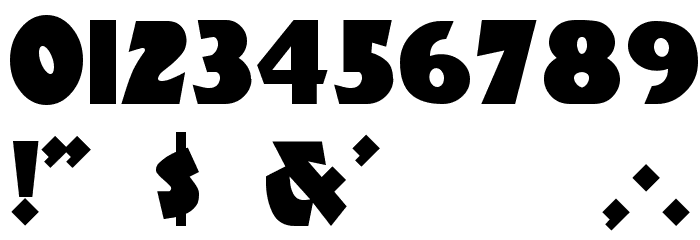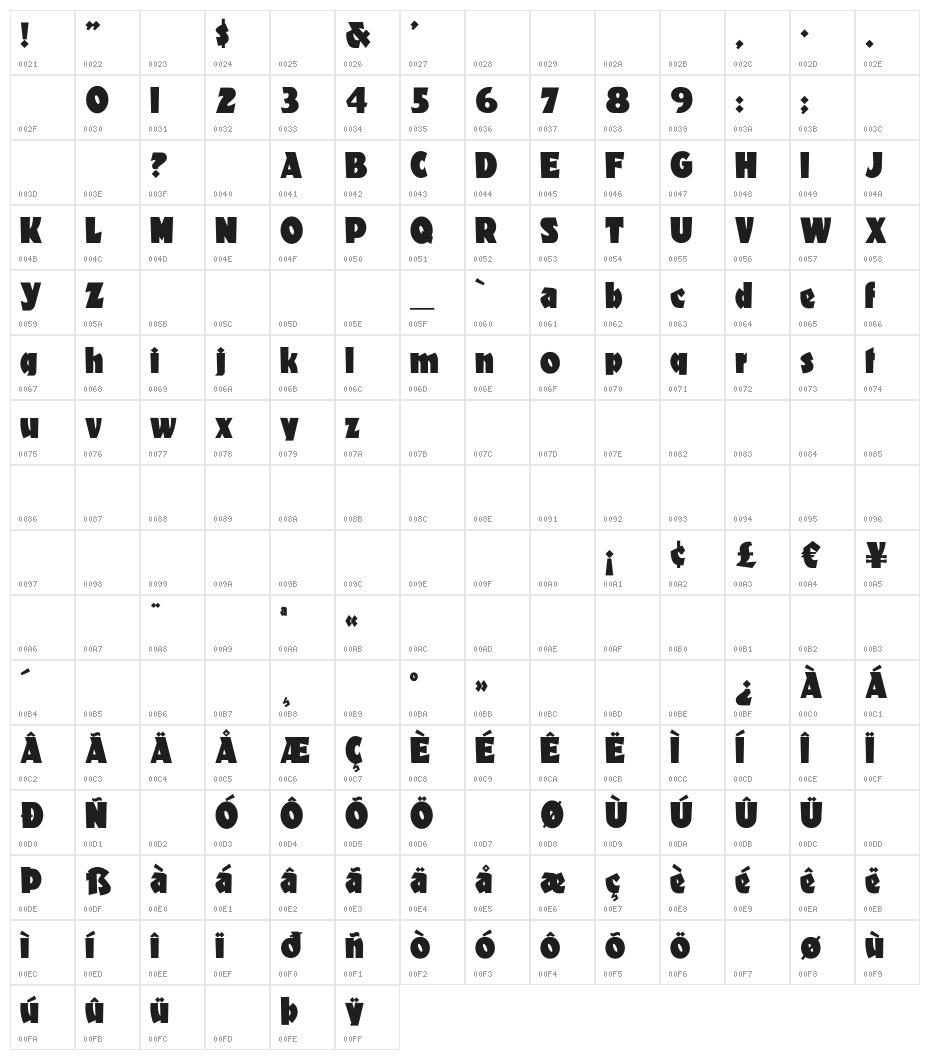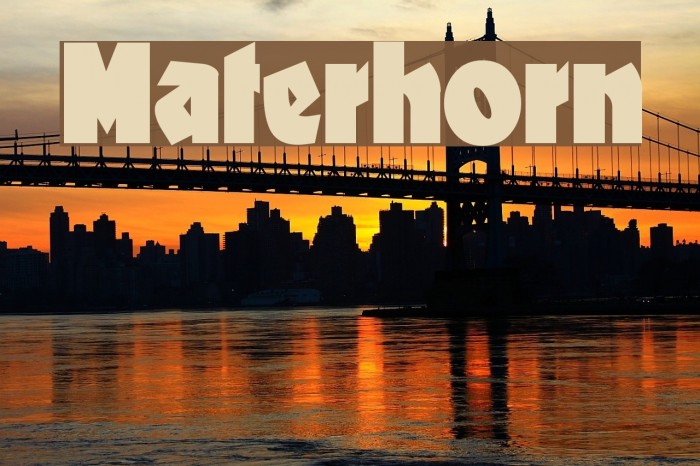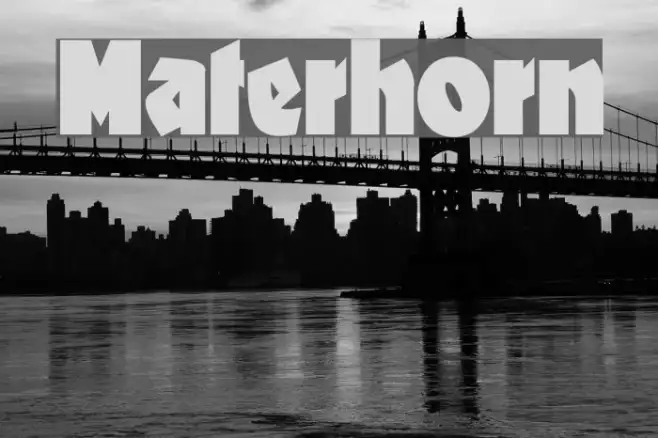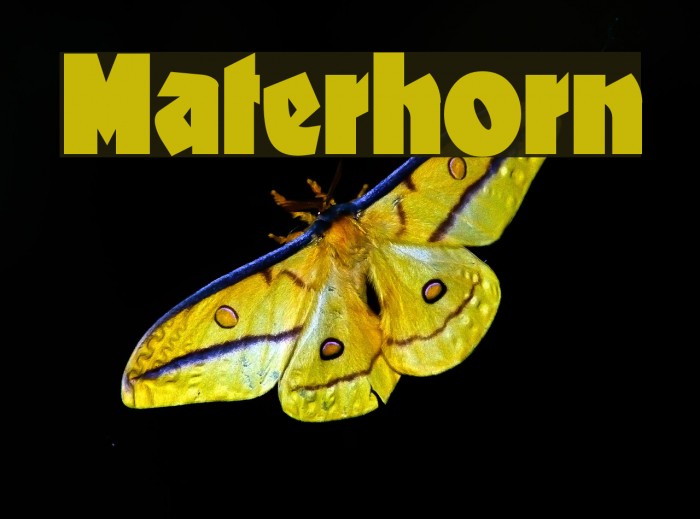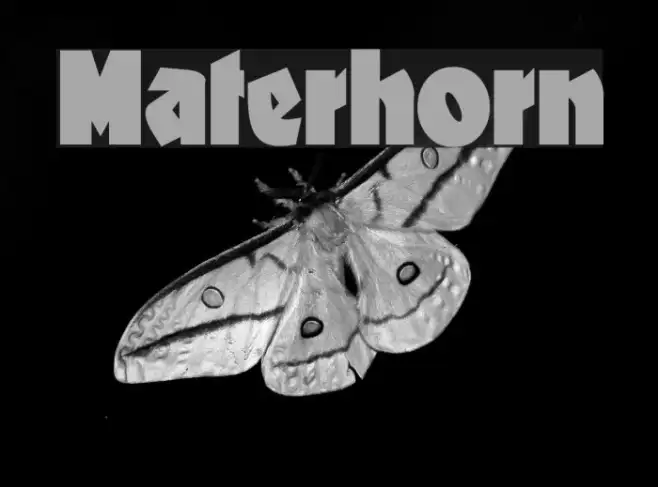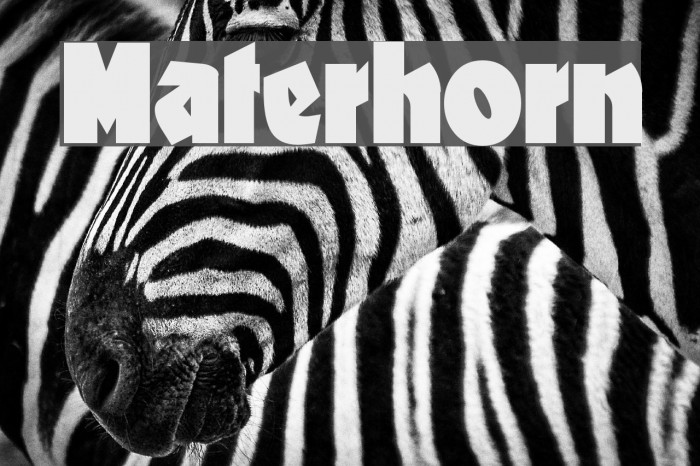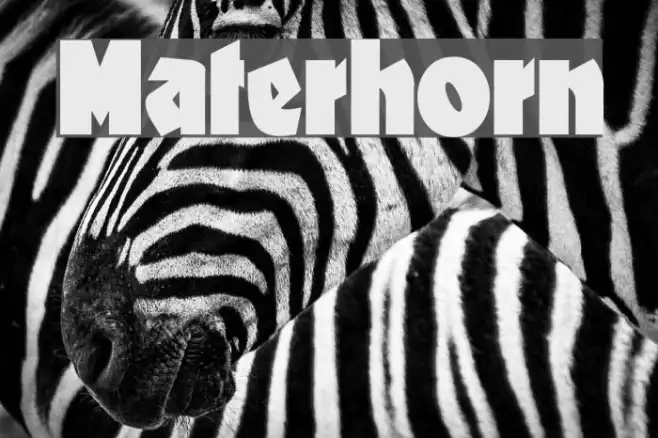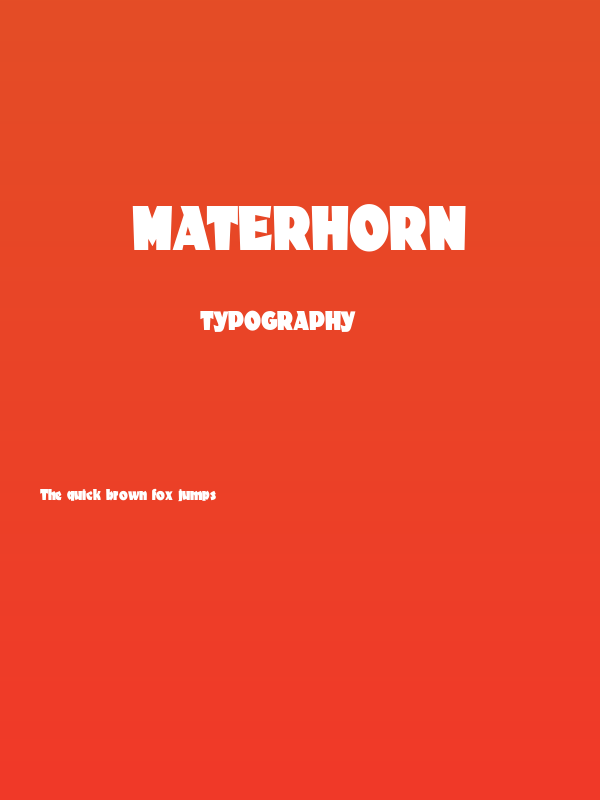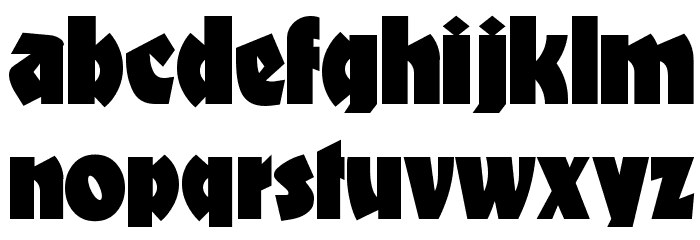
Materhorn Font
Materhorn Description
This font features a bold and dynamic style with thick, angular strokes that convey a sense of strength and impact. The uppercase letters are particularly striking, with sharp edges and a slightly condensed form that enhances their boldness. The lowercase letters maintain the same robust quality, ensuring consistency across the typeface. Numbers and special characters are equally bold, making them stand out in any design. The overall appearance is modern and eye-catching, suitable for projects that require a strong visual presence.
| Proposed Projects | Ideal for posters, headlines, logos, and branding materials that require a bold statement. |